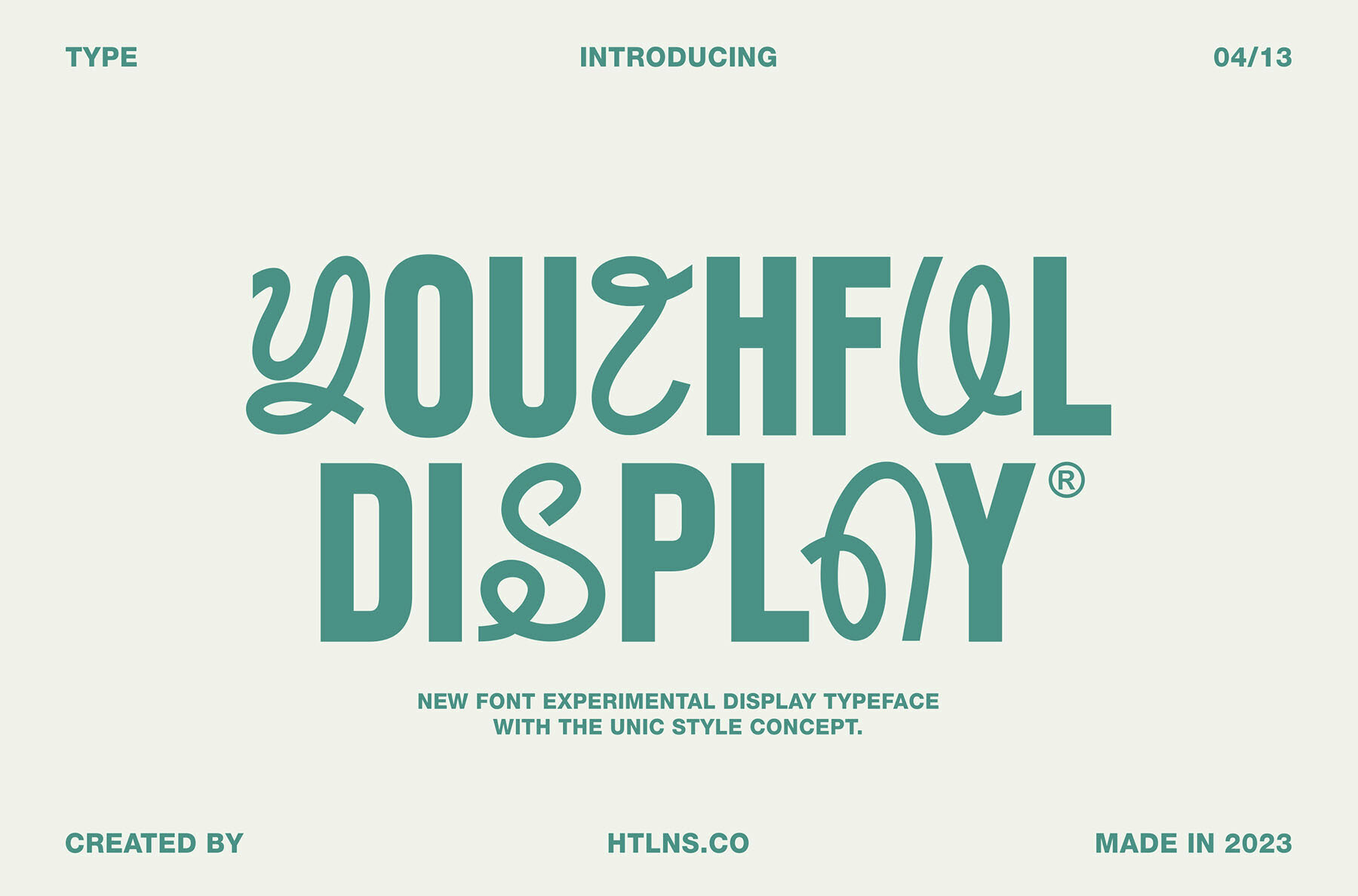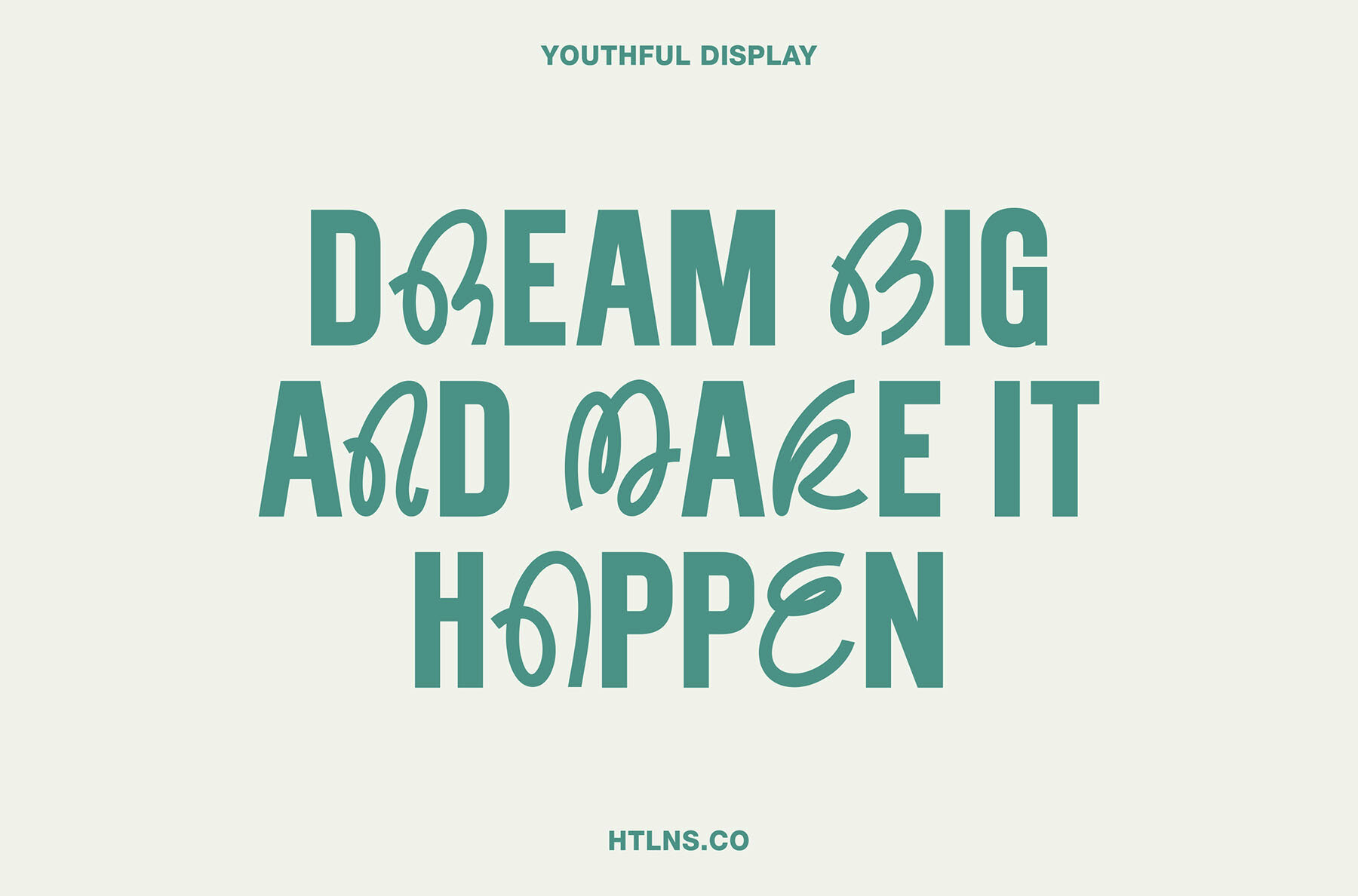
Youthful DIsplay Font
yOUtHFuL DIsPLaY Regular
Exuding modernity and vivacity, 'The Youthful Display' is a typeface that weaves together the magic of unique glyphs. It embraces a fresh and unorthodox design approach, allowing you to mix uppercase and lowercase letters to achieve aesthetically pleasing combinations. Packed with versatility, 'The Youthful Display' goes beyond just letters. It includes a comprehensive set of numerals, punctuations, and currency figures, fulfilling all your typographical needs. But that's not all. The font also comes equipped with multi-lingual support and accents, making it a truly global design tool that transcends language barriers. Whether it's for a bold headline or a captivating logo, 'The Youthful Display' is a font that brings an unmistakable charm to any design project.